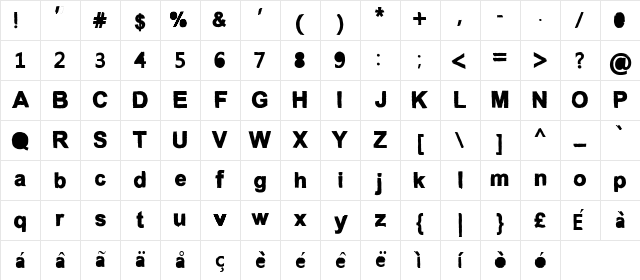
Anconventional Regular
Foundry: Jeanlouis David Amodio
Designer: Jeanlouis David Amodio
Design Context for Anconventional
Anconventional is a composed and adaptable typeface that performs quietly and consistently across a wide range of design contexts.
Pro Tip: Use Anconventional in both headline and body roles to test its range before committing to a single application.